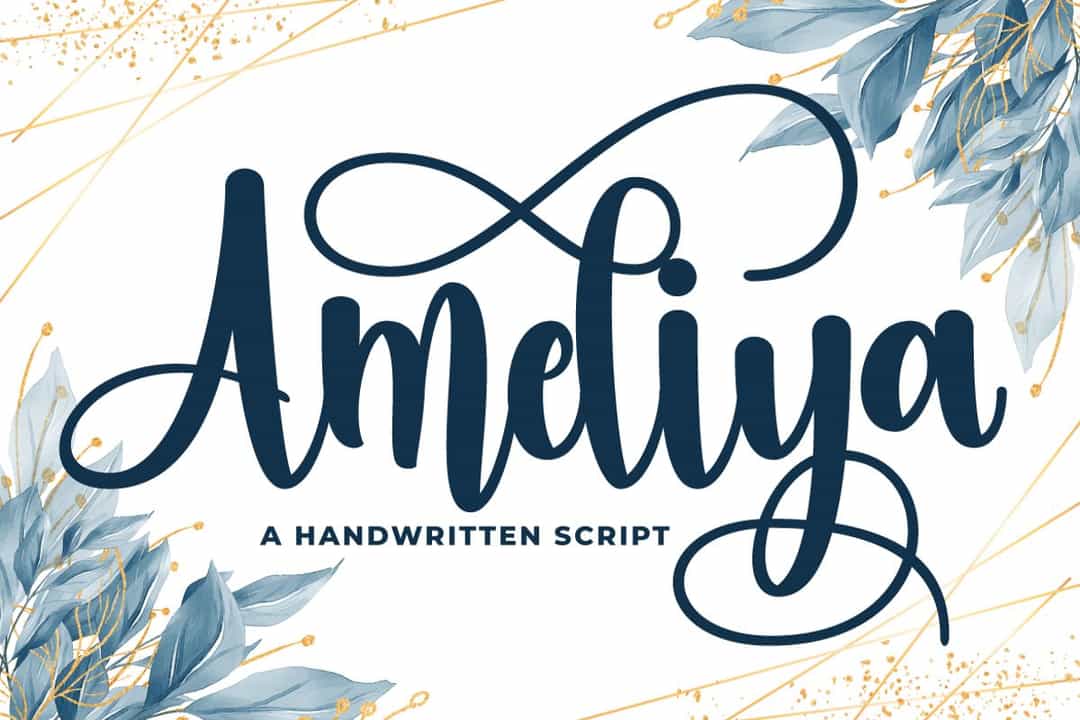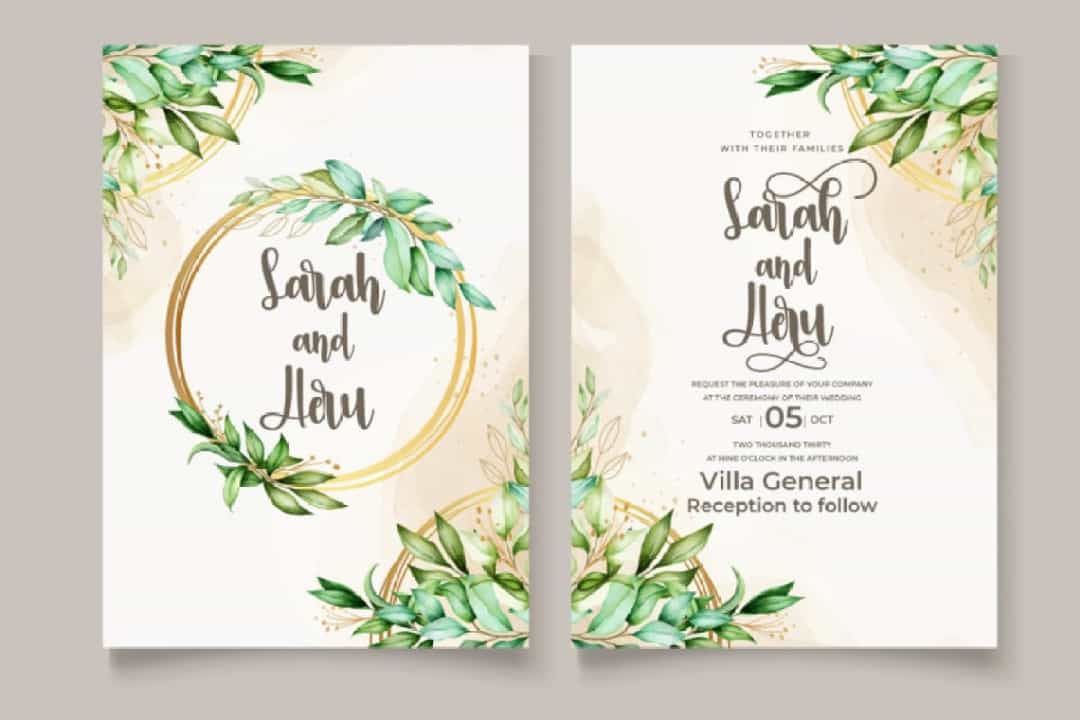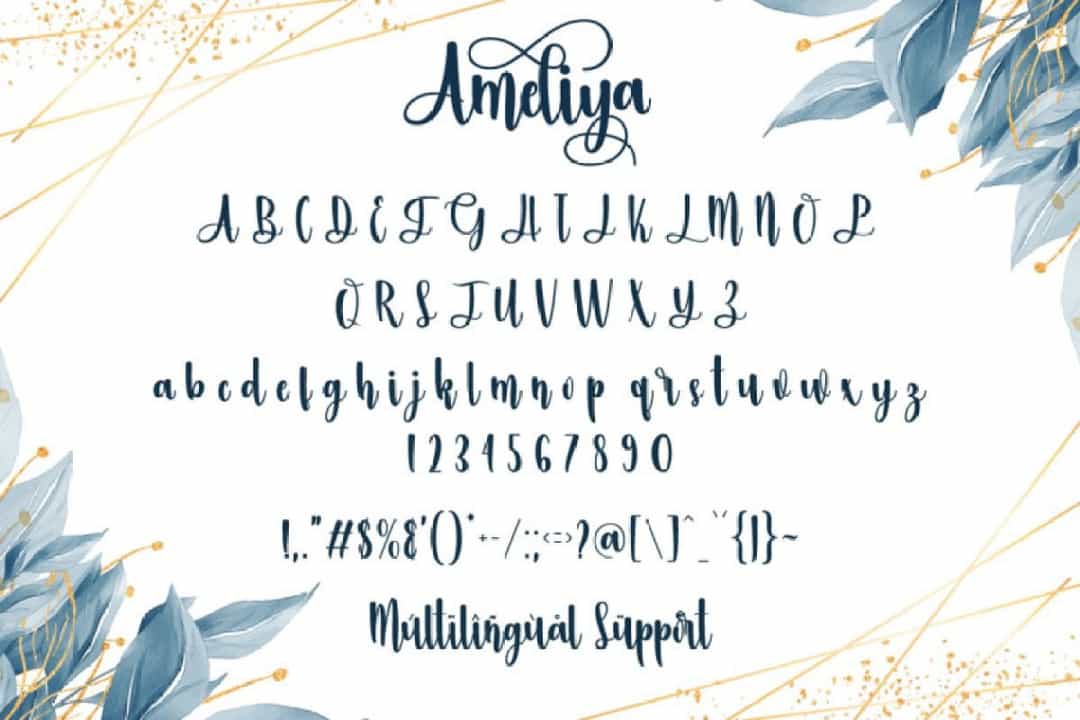
Ameliya is a sophisticated font that is written by hand. Some of the characteristics of its design are that it is soft feminine and sensual elegant, easy and straightforward for reading typeface, has elegant letter joints for easy reading and is a beautiful script font.